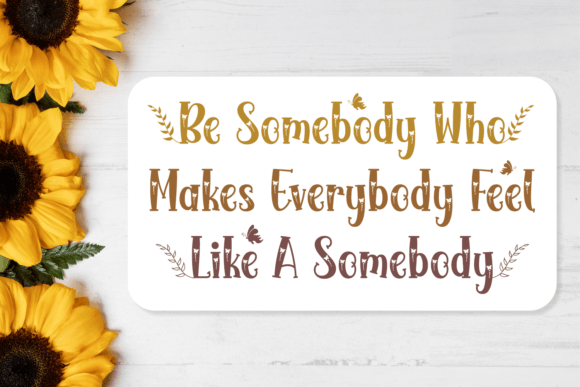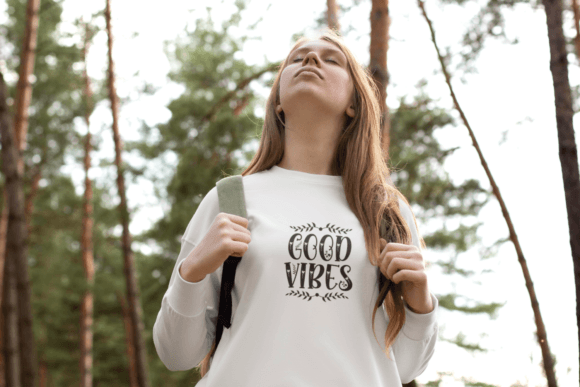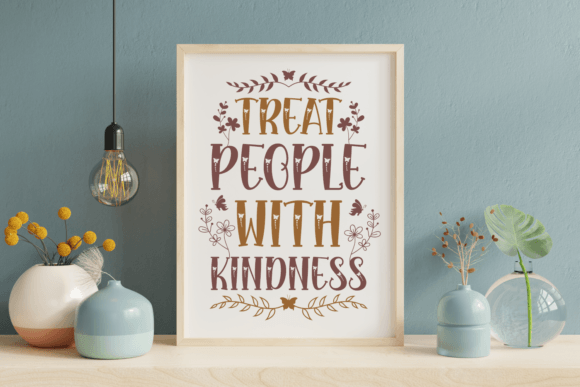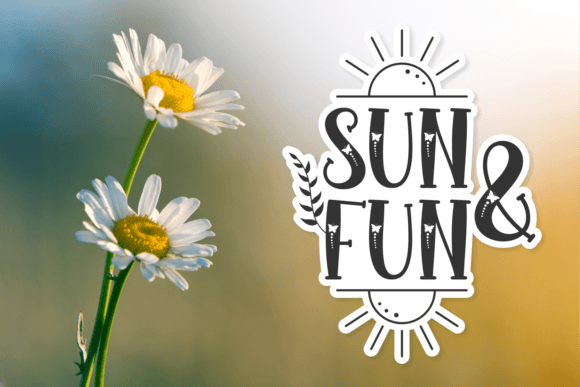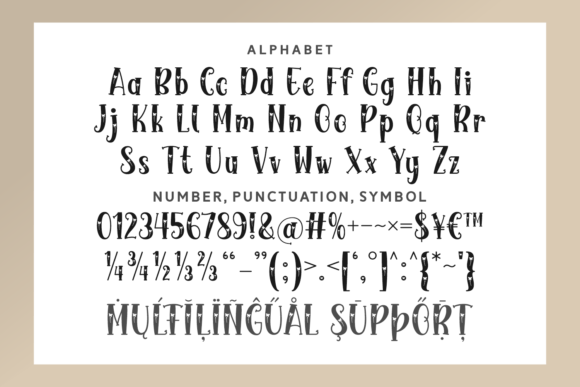
Introducing Emila Cheeks Font: Add a Touch of Elegance with Butterfly-Themed Decorations
Are you looking for a font that can add a delicate and elegant touch to your typography creations? Look no further than Emila Cheeks Font, a stunning decorative typeface that features beautiful butterfly-themed designs. With its charming and whimsical style, Emila Cheeks is perfect for designers and crafters who want to create unique and eye-catching projects.
What Makes Emila Cheeks Font Special?
Emila Cheeks Font is a one-of-a-kind typeface that stands out from the rest due to its exquisite butterfly-themed features. The font is designed to give your typography creations a touch of elegance and sophistication, making it perfect for a variety of projects, from wedding invitations and stationery to branding and packaging.
Key Features of Emila Cheeks Font
- Butterfly-themed designs: Emila Cheeks Font features beautiful butterfly-themed decorations that add a touch of elegance and whimsy to your typography creations.
- Decorative and elegant: Emila Cheeks Font is designed to give your typography creations a delicate and elegant touch, perfect for a variety of projects.
Emila Cheeks Font is perfect for designers and crafters who want to create unique and eye-catching projects. Whether you’re working on a wedding invitation, a branding project, or a craft project, this font is sure to add a touch of elegance and sophistication.
Designers can use Emila Cheeks Font to create beautiful and intricate designs, from elegant stationery to stunning packaging. Crafters can use the font to add a personal touch to their projects, from handmade cards to DIY crafts.
Tips for Using Emila Cheeks Font
Here are a few tips for using Emila Cheeks Font in your projects:
- Use it sparingly: Emila Cheeks Font is a decorative font, so it’s best to use it sparingly to add a touch of elegance to your designs.
- Experiment with different sizes: Try using the font in different sizes to create visual interest and add depth to your designs.
- Pair it with other fonts: Emila Cheeks Font pairs well with other fonts, so feel free to experiment with different combinations to create a unique look.
Emila Cheeks Font is a stunning decorative typeface that features beautiful butterfly-themed designs. With its elegant and delicate style, it’s perfect for designers and crafters who want to create unique and eye-catching projects. Whether you’re working on a wedding invitation, a branding project, or a craft project, Emila Cheeks Font is sure to add a touch of sophistication and elegance.